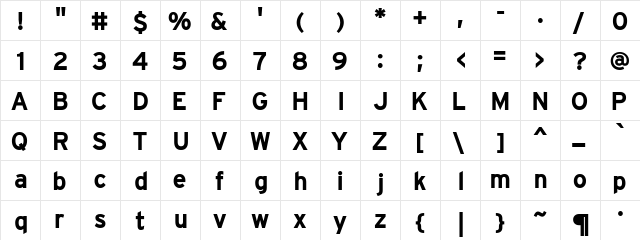
IntraStateHighwayBlack Regular
Design Context for IntraStateHighwayBlack Typeface
IntraStateHighwayBlack is a composed and adaptable typeface that performs quietly and consistently across a wide range of design contexts.